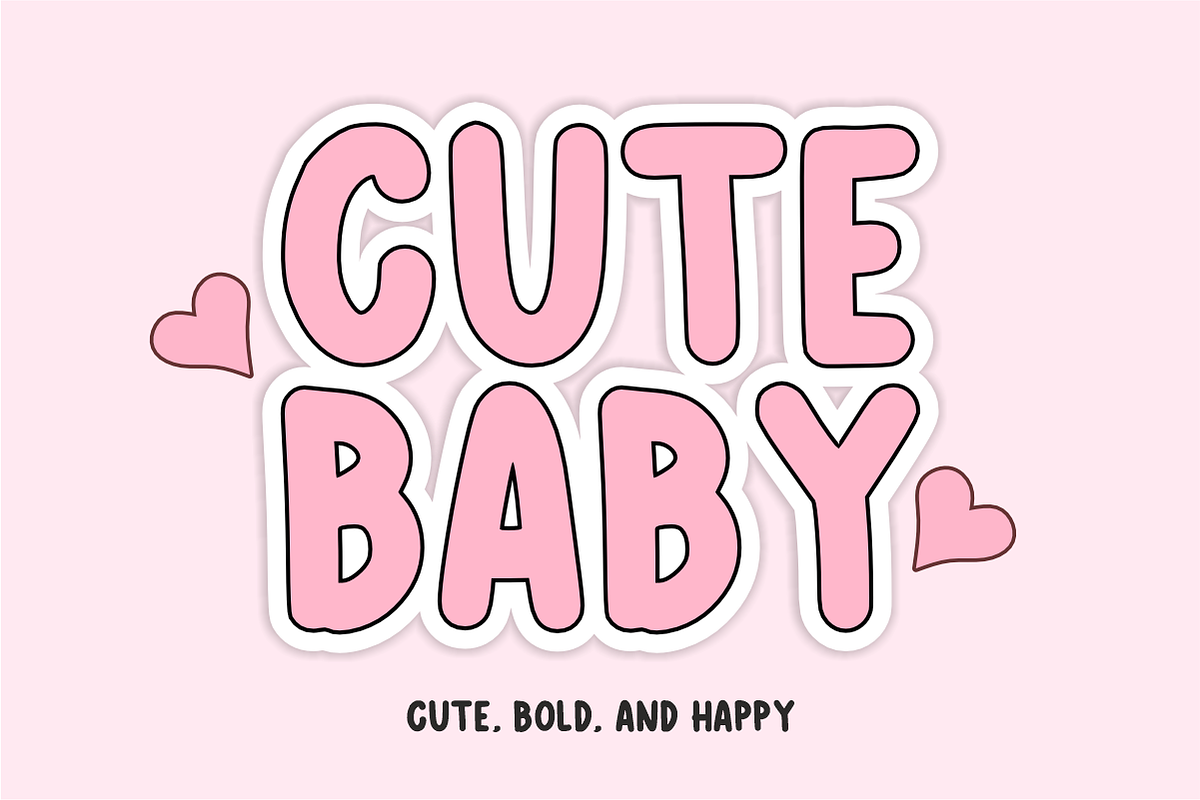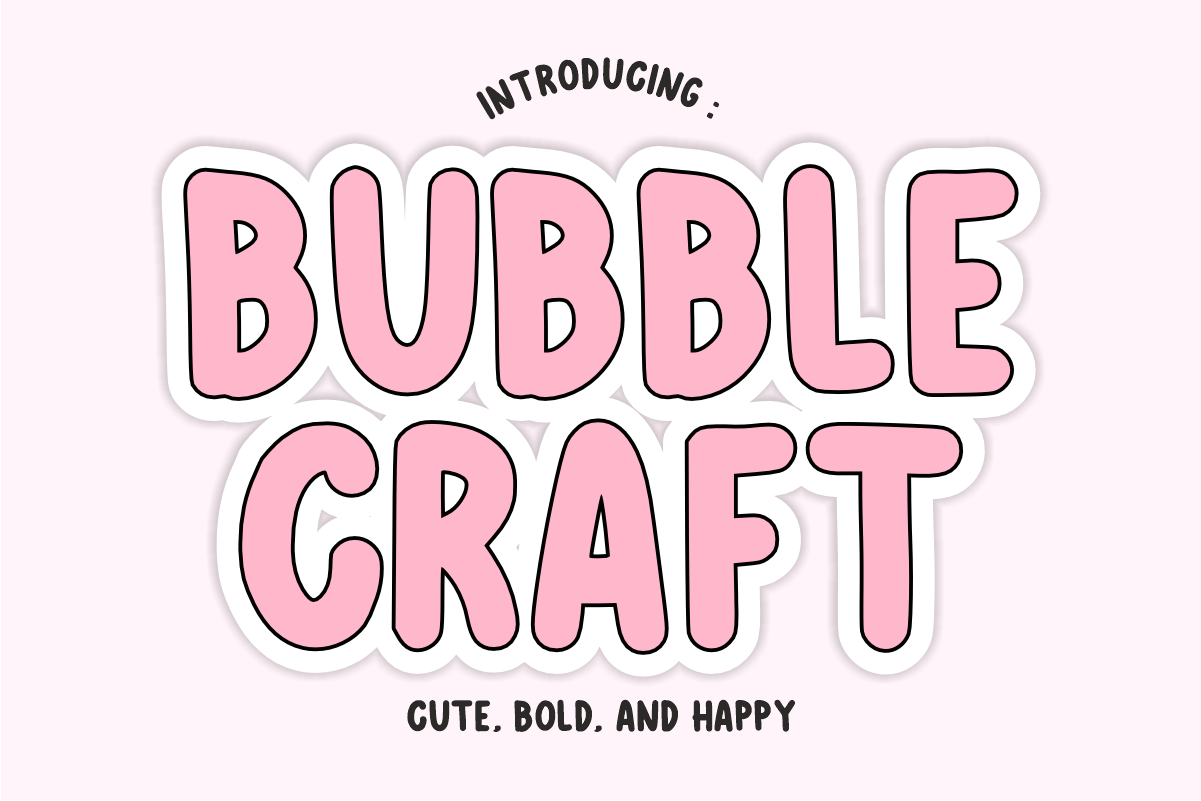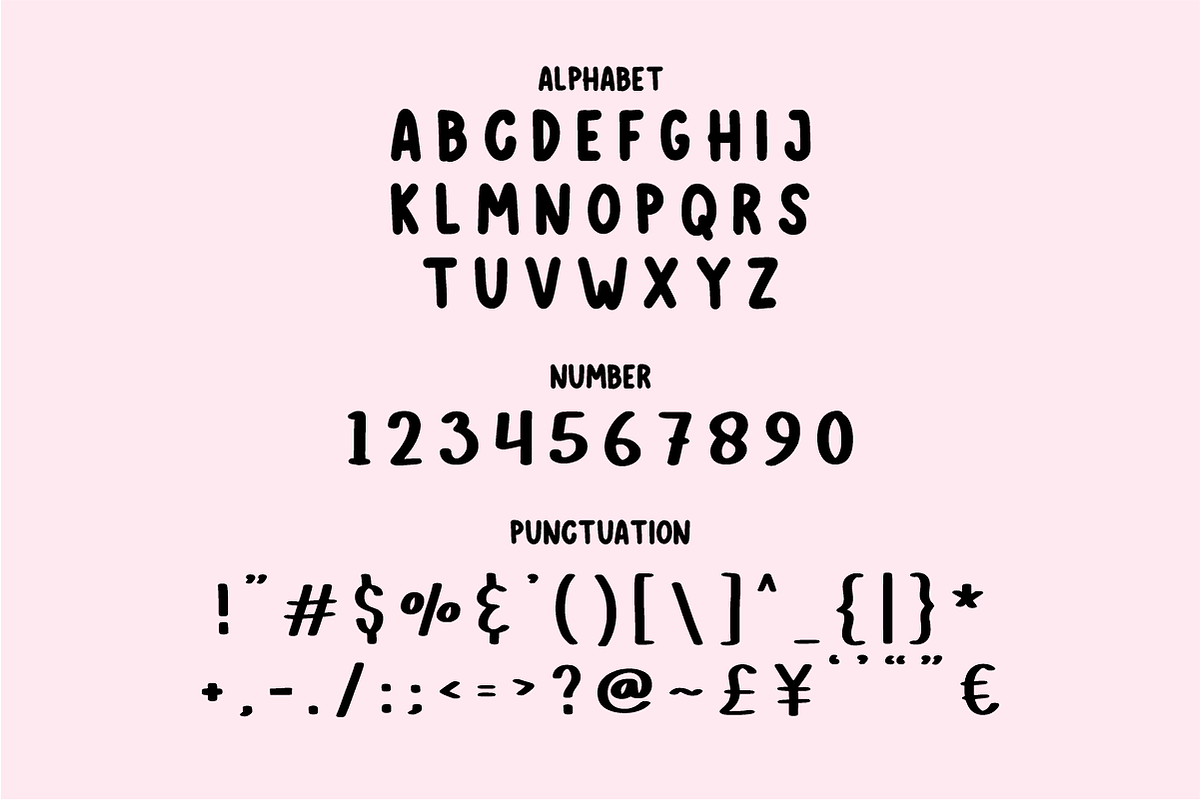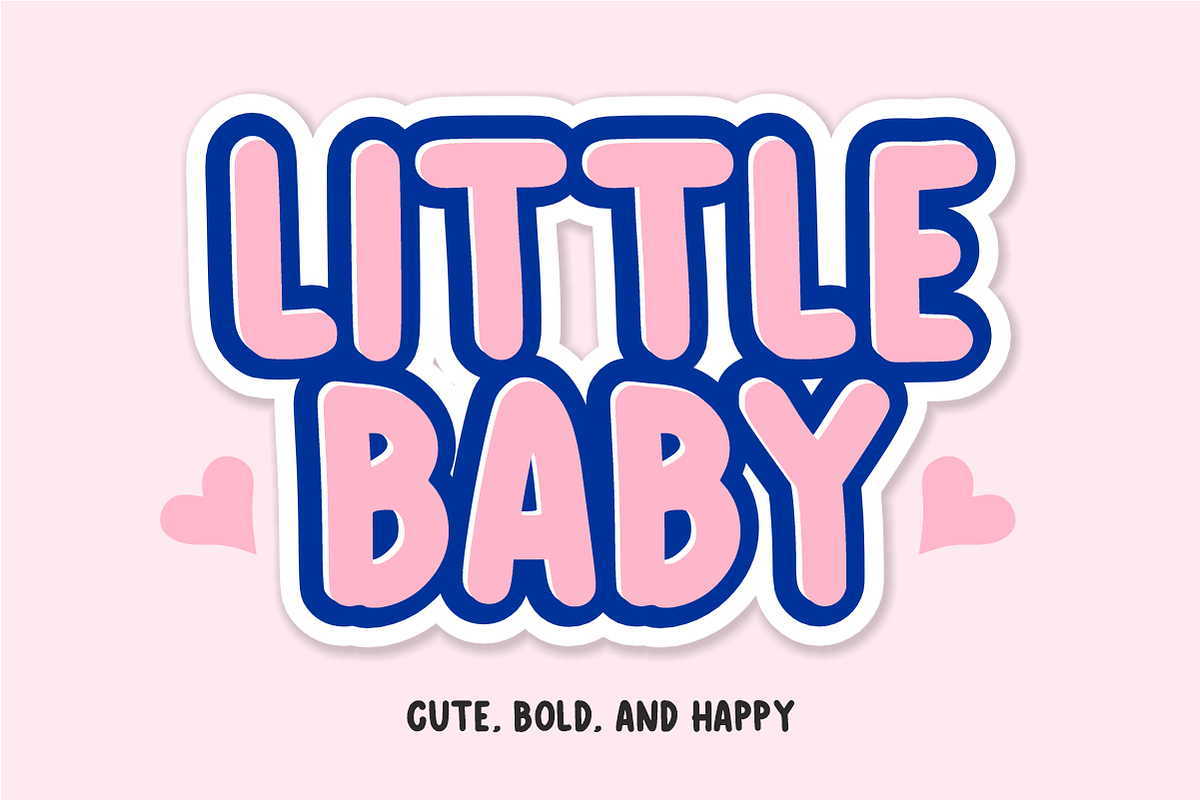
Bubble Craft - Cute Bubbly Font
Bubble Craft is a tall, bold, and bubbly craft display font featuring soft, puffy letterforms with a cheerful and playful charm. Designed specifically for DIY crafters, sticker makers, classroom decorations, and fun apparel, this font brings instant happiness and eye-catching energy to any project. Every character is cleanly vectorized to guarantee high-resolution prints and smooth, effortless cutting on Cricut and Silhouette machines.
Uppercase Character Set
Numbers & Basic Punctuation
Ideal For:
Cricut, Silhouette, and HTV vinyl craft projects for kids' t-shirts, custom mugs, tote bags, and tumbler wraps
Custom die-cut sticker packs, planner decals, laptop stickers, and digital scrapbooking layouts
Teachers Pay Teachers (TpT) authors creating classroom bulletin headers, learning worksheets, and student rewards
Etsy sellers designing birthday party invitations, baby shower cards, personalized gifts, and colorful printables
Canva template creators making bold social media graphics, party banners, and event posters
Children's storybook titles, toy packaging, baby product branding, and cheerful logo designs